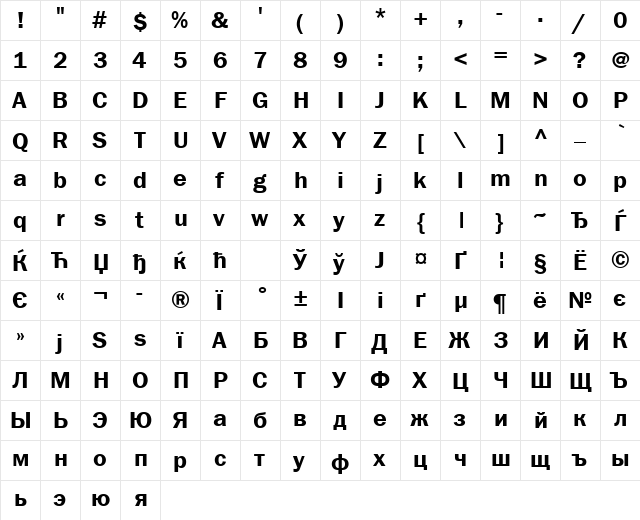
font168 Regular
Design Context for font168 Typeface
font168 offers clean, dependable letterforms without strong stylistic allegiance, making it a practical choice for designers who need flexibility.